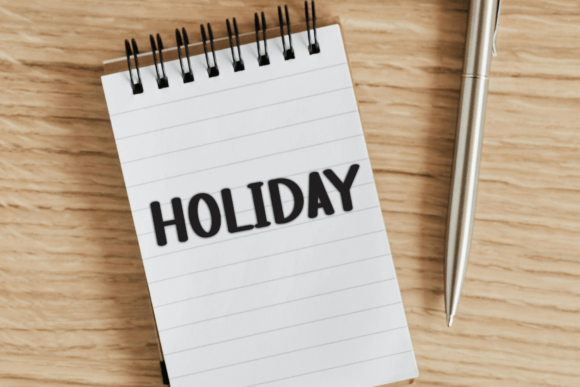
Bold Disney Font
Bold Disney is a sweet and friendly sans-serif font. Its natural and unique style makes it incredibly fitting to a large pool of designs. The only limit is your imagination.